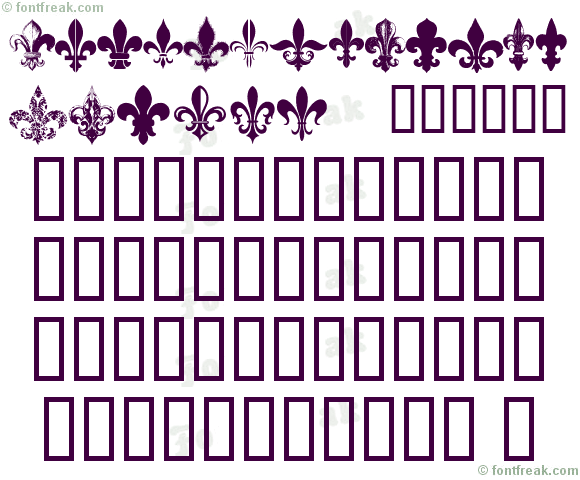
Fleur de Lys Regular
Fleur de Lys Regular by Cloutierfontes is an exquisite display font that embodies elegance and sophistication. This decorative typeface features a blend of ornate details and a refined aesthetic, making it a captivating choice for various creative projects. The font showcases a moderate stroke weight with delicate contrasts that enhance its visual appeal. Its generous spacing allows for readability while maintaining a luxurious feel, accentuated by its unique floral motifs inspired by the classic fleur-de-lis symbol.
This font excels in a variety of use cases, making it a versatile addition to any designer's toolkit. It is particularly well-suited for wedding invitations, where its romantic flair can beautifully set the tone for special occasions. Fleur de Lys Regular also works wonderfully on restaurant menus, adding a touch of sophistication that can elevate the dining experience. Additionally, it can be used for movie posters, especially those in the romance or fantasy genres, where its elegant style can draw attention and convey a sense of charm. Graphic designers and content creators will find it equally appealing for branding projects that require a distinctive and memorable typographic presence.
Targeting small business owners, event planners, and graphic designers, Fleur de Lys Regular font free download offers an opportunity to incorporate a high-quality typeface into their work without financial commitment. This font stands out not only for its artistic flair but also for its ability to convey a sense of tradition and elegance, making it a perfect choice for projects that seek to leave a lasting impression. Whether you're designing for print or digital media, Fleur de Lys Regular is sure to enhance the visual identity of your work.